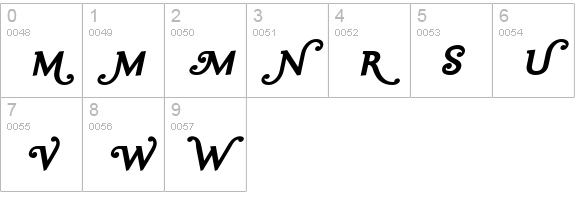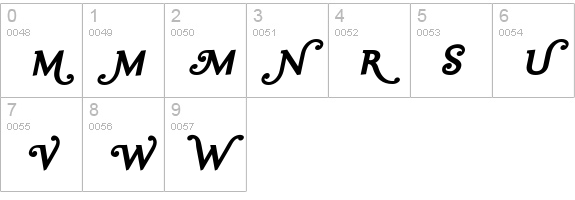
Ela Swashes Black Italic PDF is a maximum-weight, dramatic, italic variant in the Ela typeface family \xE2\x80\x94 well suited to maximum-impact headlines, posters, and packaging.
Ela Swashes Black Italic PDF font is a stunning and elegant typeface that exudes sophistication and style. Its bold and italic design with decorative swashes adds a touch of flair to any project, making it perfect for headings, invitations, and other creative designs. The sleek and modern look of this font makes it suitable for various purposes, from branding to editorial design. And the best part? Ela Swashes Black Italic PDF font is available for free download at FontsMarket.com. This means you can easily access this beautiful typeface and elevate your designs without any cost. Don't miss out on this fantastic opportunity to enhance your projects with the exquisite Ela Swashes Black Italic PDF font. Download it now and let your creativity shine!